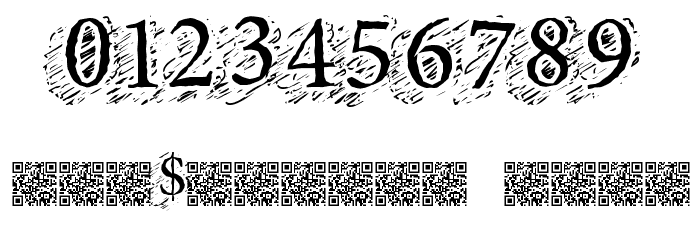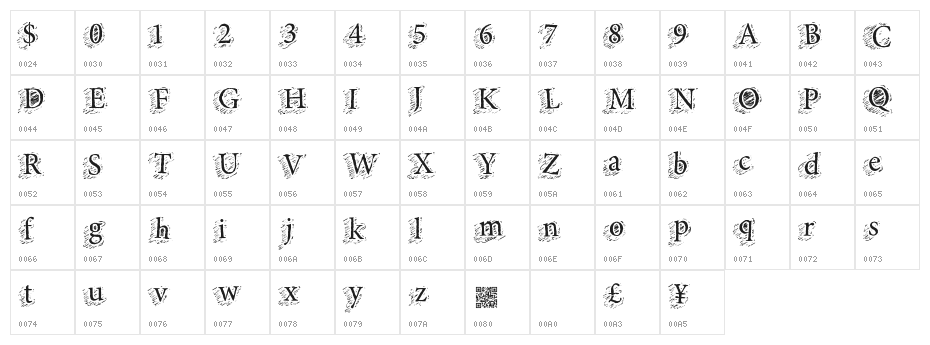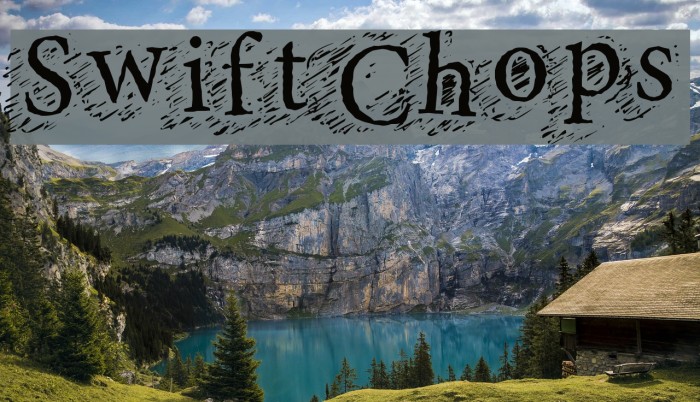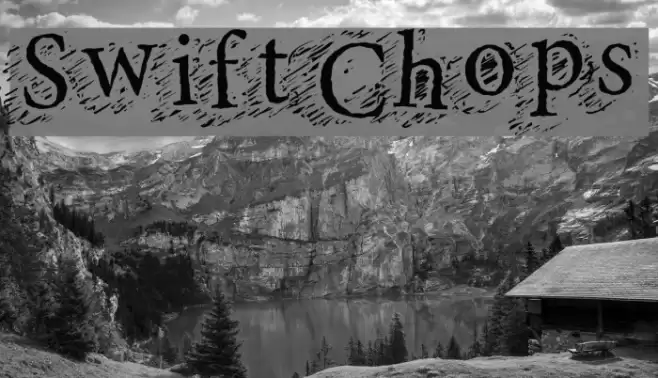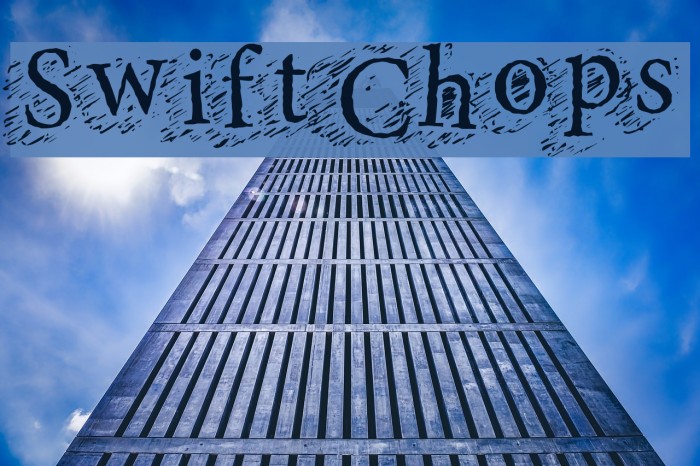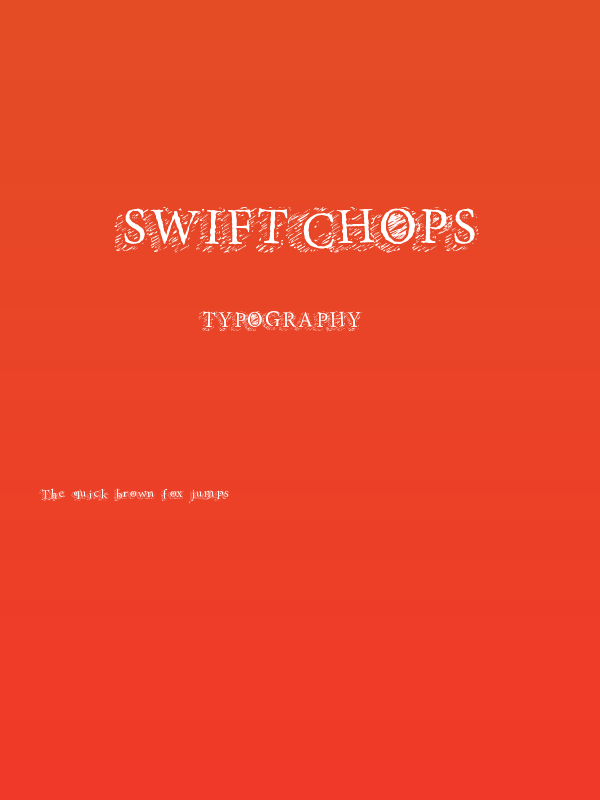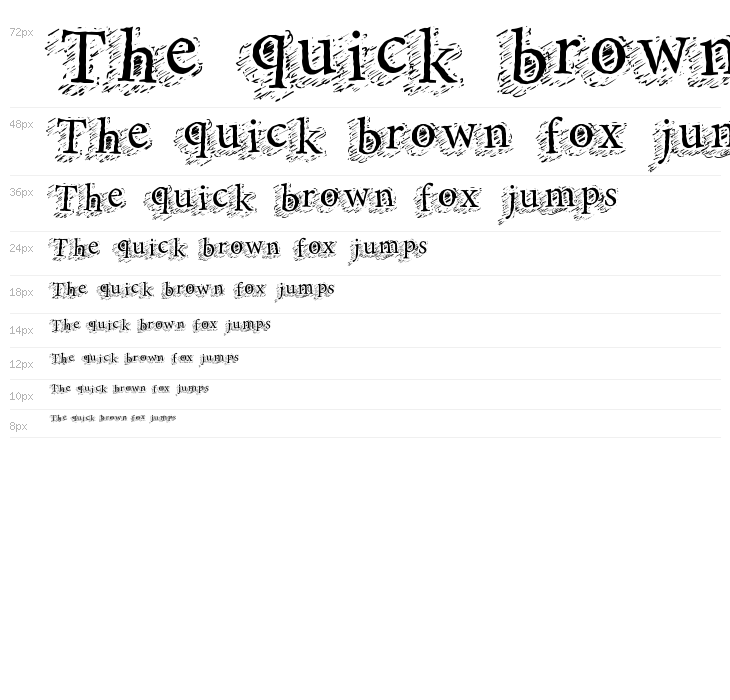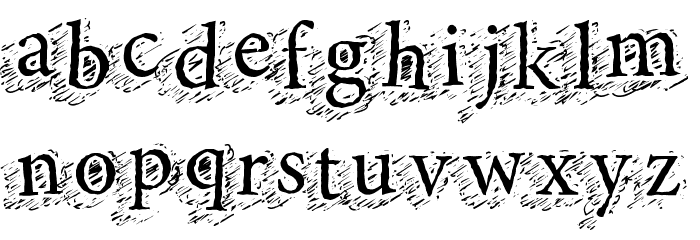
SwiftChops Font
SwiftChops Description
This font features a bold and dynamic style with a textured, sketch-like appearance. The characters are serifed, with each letter exhibiting a unique hand-drawn quality that gives it a rustic and artistic feel. The uppercase and lowercase letters maintain a consistent design, with the serifs adding a touch of elegance. Numbers and special characters follow the same textured pattern, ensuring uniformity across all elements. The font's distinct style makes it stand out, suitable for creative and expressive projects.
Proposed ProjectsIdeal for artistic posters, creative branding, book covers, and unique invitations.